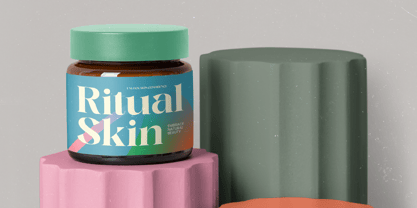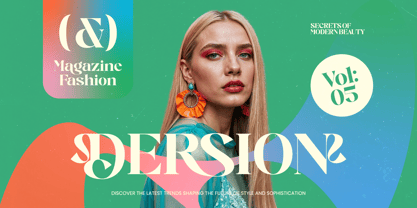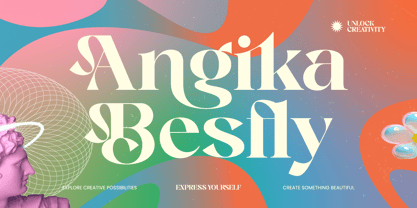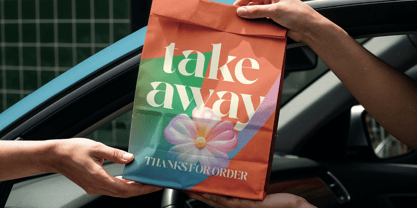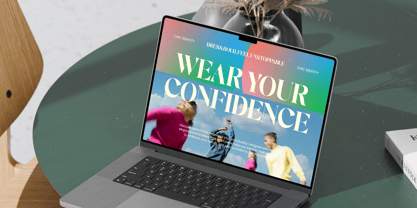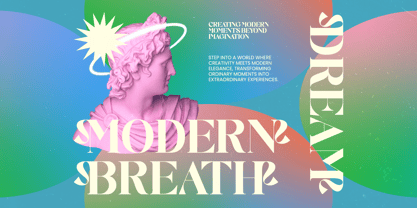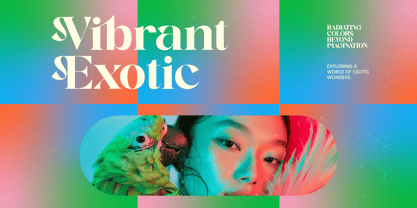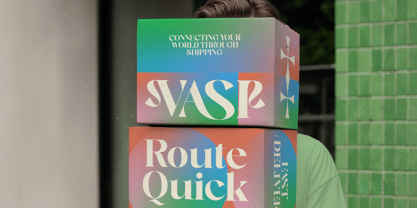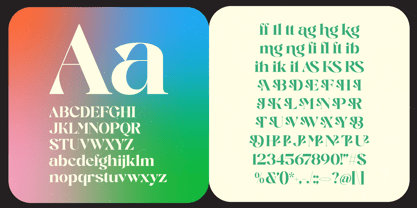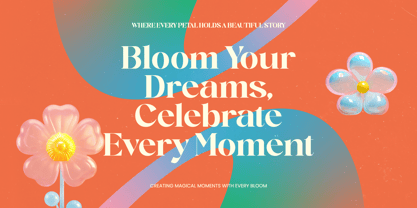
Angika Besfly
by Timelesstype Studio
The Angika Besfly Font Family was designed by Heru Utama Putra and published by Timelesstype Studio. Angika Besfly contains 2 styles and family package options. More about this family
Angika Besfly - Serif Display Font is a masterpiece of modern typography, blending high-contrast strokes with graceful fluid curves. This premium serif font offers a striking visual balance that commands attention, making it the definitive choice for designers seeking a luxurious aesthetic that feels both timeless and contemporary.
Experience unparalleled design flexibility through a rich suite of character options and global accessibility. Featuring 18 unique ligatures and 29 distinct alternates, Angika Besfly - Serif Display Font empowers you to craft truly customized and dynamic layouts. With its extensive multilingual support, Angika Besfly - Serif Display Font adapts seamlessly across global markets, making it incredibly versatile for international projects and ensuring your message resonates with diverse audiences.